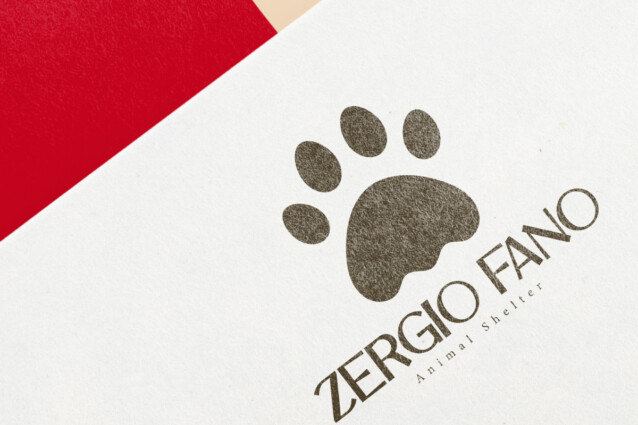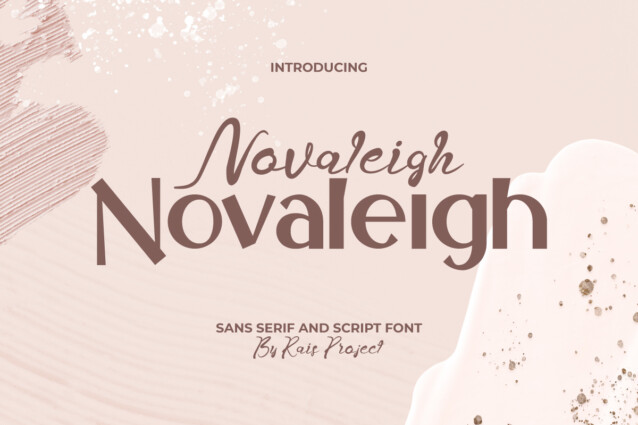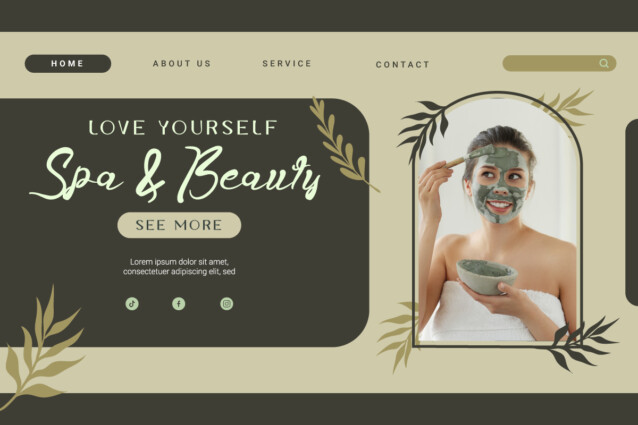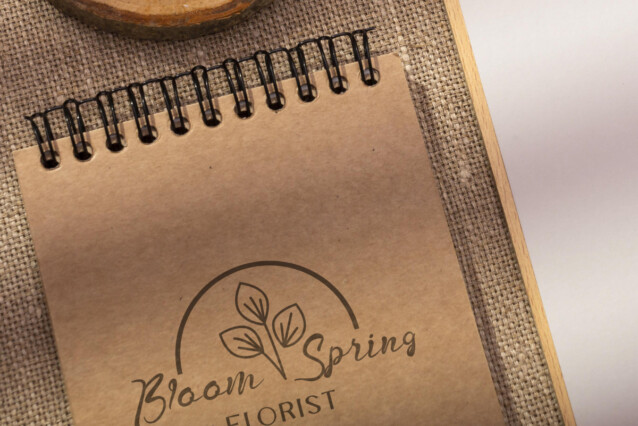
Novaleigh Font is a beautiful font duo with stylish sans serif display and lovely calligraphy script font. Both fonts can make your design look both casual and modern, but still catch the eye of everyone who looks at it. Try this font on a variety of designs, such as brand image, greeting card, invitation, label or product packaging, menu, poster, quote, signage, website, and more!